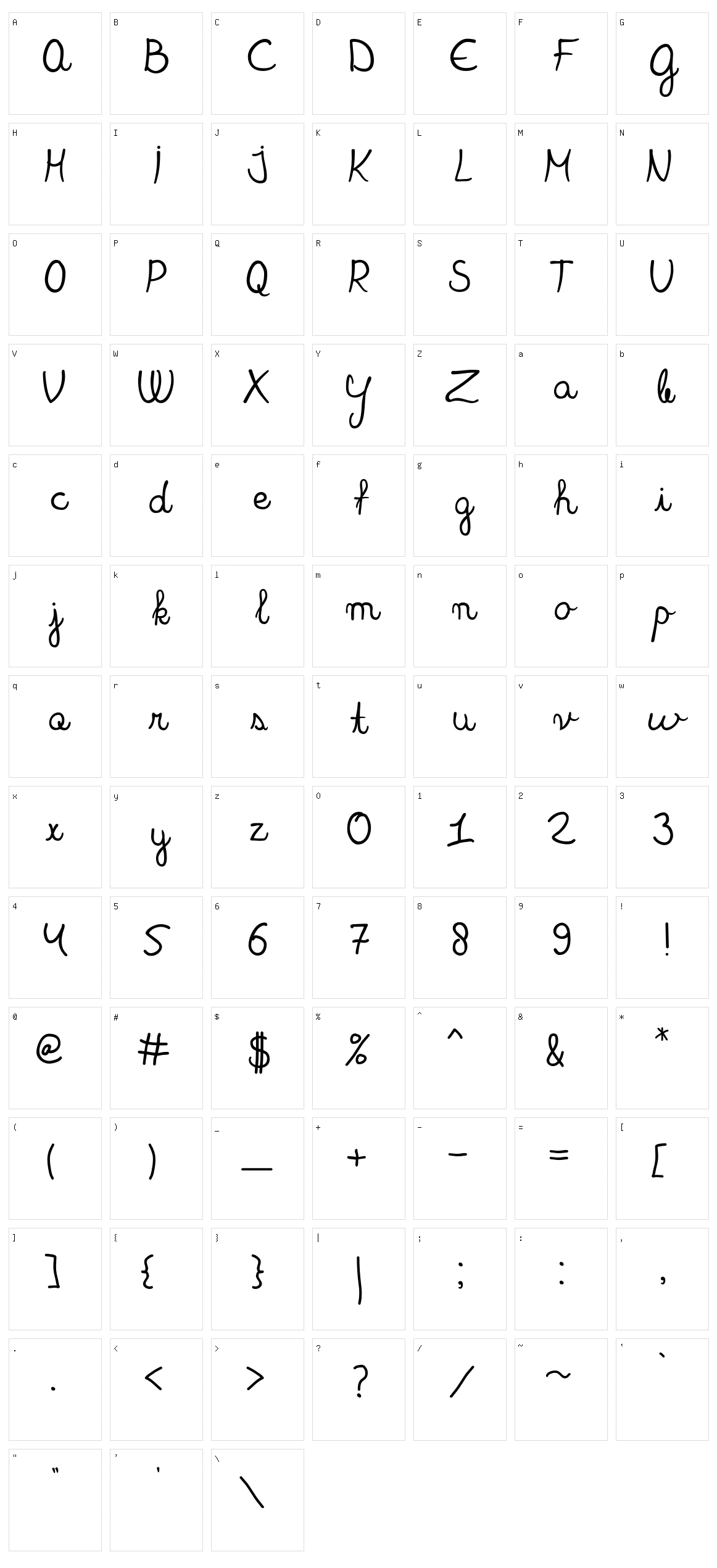
The free font Blackboard Ultra is carefully designed by Drukland.nl, showcasing a thoughtful balance of creativity and usability and falls under the Script font style. When you download the ZIP file, it contains only 32.39 KB of font files, making it lightweight and quick to download. Please review the license details below to understand permitted usage and distribution rights. If license information is not available, we recommend using this font for personal projects only or contacting the author directly for commercial usage permissions.